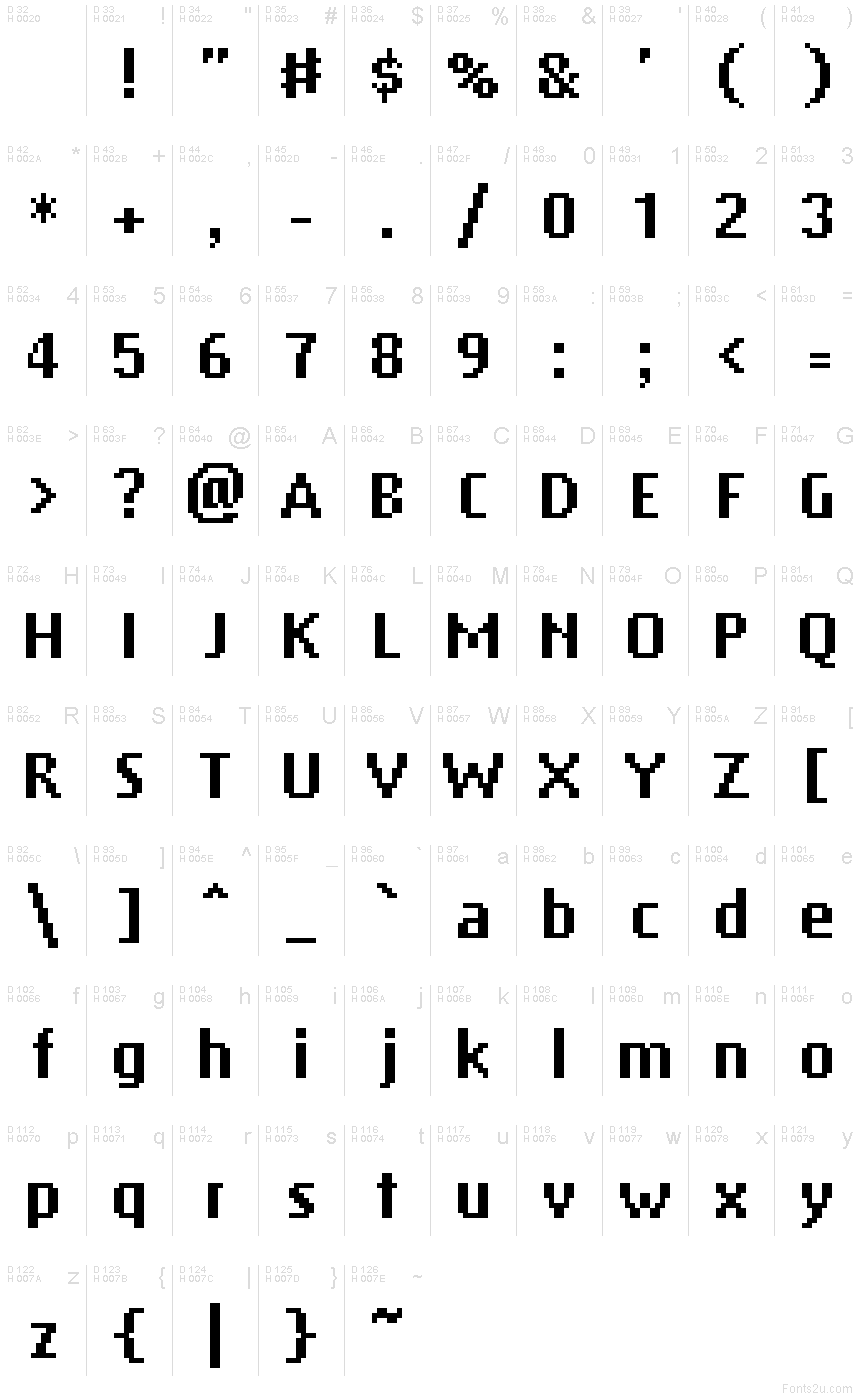
OS2 Warp 4 Regular
OS2 Warp 4 font by mymail4 is a free bold pixelated bitmap display font. Built like a true low‑res workhorse, it nails the tricky balance between crunchy retro character and clean, readable shapes. Square counters, stair‑step diagonals, and chunky stems lock neatly to the grid, while the spacing stays tight without smearing into a blur. It’s the practical way to get authentic DOS‑era texture without sacrificing clarity.
Using OS2 Warp 4, you can push retro game HUDs, console‑style UIs, techno posters, stream overlays, badges, and pixel‑art zines with confidence. This free font holds rhythm at tiny sizes and scales crisply for headers. For a simple pairing, team it with a neutral grotesk for body copy, and set it on whole‑pixel increments (8, 16, 32px) to keep the edges razor‑sharp.